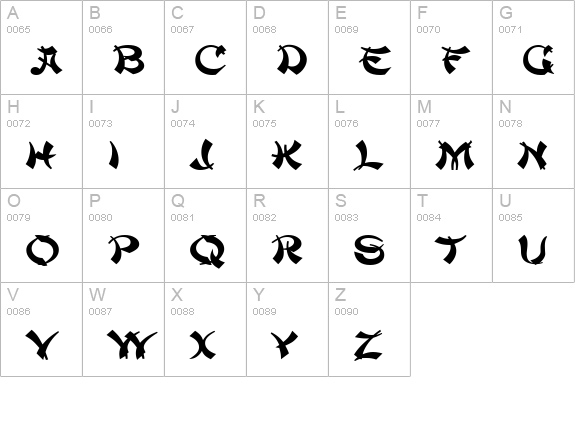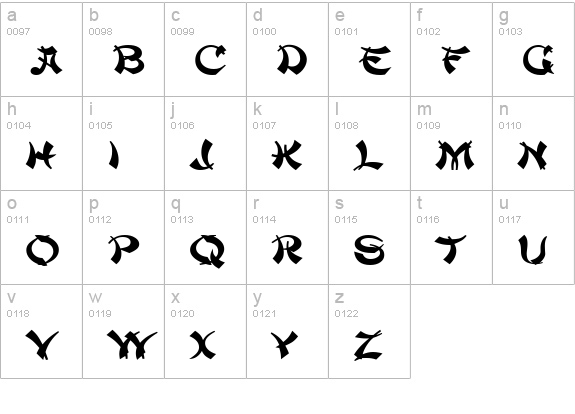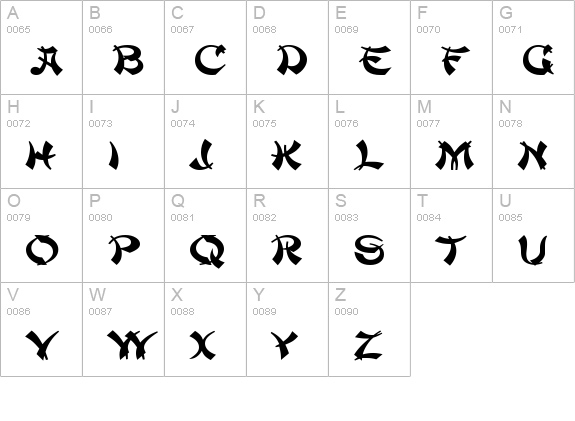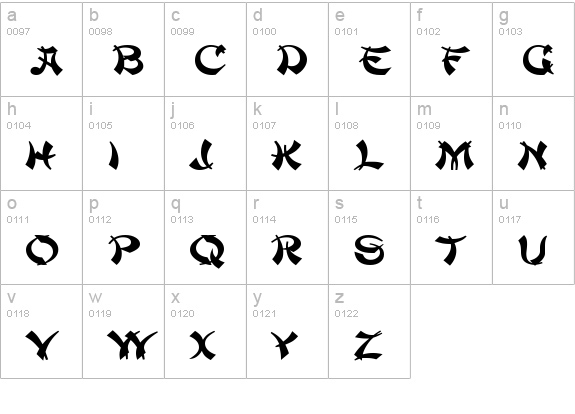
ChowMeinWide Regular Font Details
ChowMeinWide Regular is the standard, neutral variant in the ChowMeinWide typeface family \xE2\x80\x94 well suited to general body text, paragraphs, and standard typographic work.
ChowMeinWide Regular font is a modern and stylish typeface that exudes a contemporary aesthetic with its wide and bold letterforms. Perfect for creating eye-catching designs, this font is versatile and can be used for a variety of projects. Whether you're designing a poster, logo, or branding materials, ChowMeinWide Regular is sure to make a statement. And the best part is, ChowMeinWide Regular font is completely free to download at FontsMarket.com. Take advantage of this amazing offer and elevate your design projects with this stunning font. Don't miss out on the opportunity to add ChowMeinWide Regular to your font collection today!